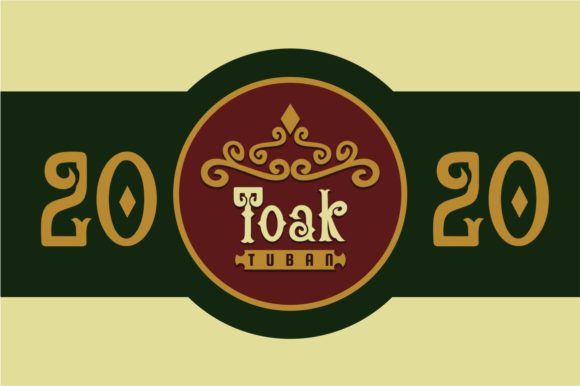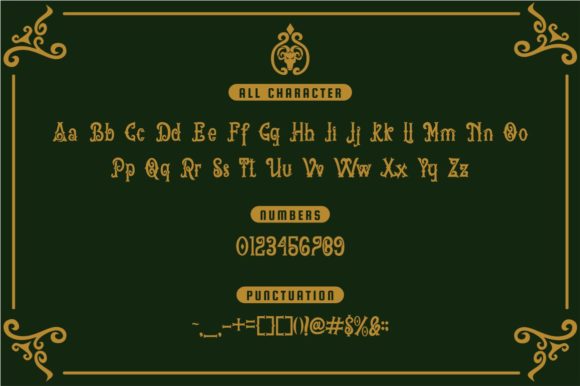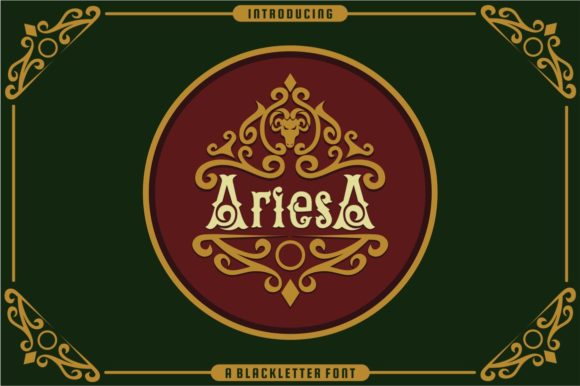
Ariesa Font: Unleash Your Creativity with this Unique Blackletter Font
Ariesa is a unique and interesting blackletter font that has been masterfully designed to become a true favorite among designers and crafters. With its distinctive and elegant style, this font has the potential to bring each of your creative ideas to the highest level. In this article, we’ll explore the features and benefits of Ariesa Font, and how it can elevate your designs and projects.
What is Ariesa Font?
Ariesa Font is a blackletter font that is characterized by its dramatic and ornate lettering style. Blackletter fonts are known for their intricate and decorative designs, and Ariesa is no exception. The font features bold, sweeping lines and elegant flourishes that give it a unique and eye-catching appearance.
Features of Ariesa Font
Ariesa Font has several features that make it a standout among other blackletter fonts. Some of its key features include:
- Unique and distinctive design: Ariesa Font has a one-of-a-kind design that sets it apart from other blackletter fonts. Its elegant and ornate style makes it perfect for a variety of creative projects.
- High-quality and precise craftsmanship: The font has been carefully crafted to ensure that every letter and symbol is precise and of high quality.
- Multilingual support: Ariesa Font supports multiple languages, making it a versatile font that can be used for a wide range of projects.
- Easily customizable: The font is highly customizable, allowing you to adjust the size, color, and style to suit your needs.
Benefits of Using Ariesa Font
Ariesa Font offers several benefits to designers and crafters, including:
- Adds elegance and sophistication to your designs: The font’s elegant and ornate style adds a touch of sophistication and elegance to any design or project.
- Perfect for creative projects: Ariesa Font is ideal for a variety of creative projects, including logos, branding, packaging, and more.
- Helps to establish a strong brand identity: The font’s unique and distinctive design can help to establish a strong brand identity and make your designs stand out.
- Increases visual appeal: The font’s bold and sweeping lines increase the visual appeal of any design or project, making it more engaging and attention-grabbing.
| Font Name | Ariesa Font |
| Author | GFRcreative |
Ariesa Font is a unique and interesting blackletter font that has the potential to bring each of your creative ideas to the highest level. With its distinctive and elegant style, this font is perfect for designers and crafters who want to add a touch of sophistication and elegance to their designs. Whether you’re looking to create a logo, brand identity, or packaging, Ariesa Font is a versatile and highly customizable font that can help you achieve your creative goals.
In conclusion, Ariesa Font is a must-have font for designers and crafters who want to take their creative projects to the next level. Its unique and elegant style, combined with its versatility and customizability, make it a valuable addition to any design collection.